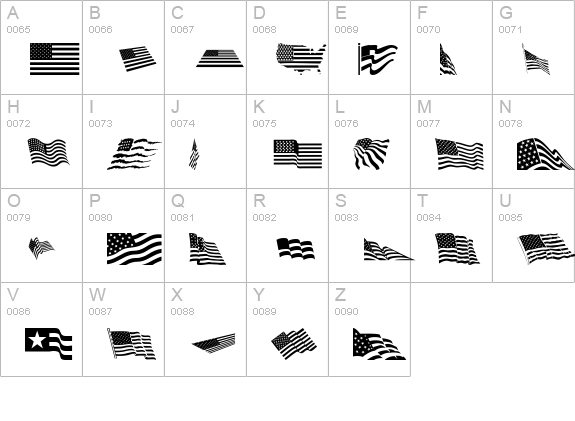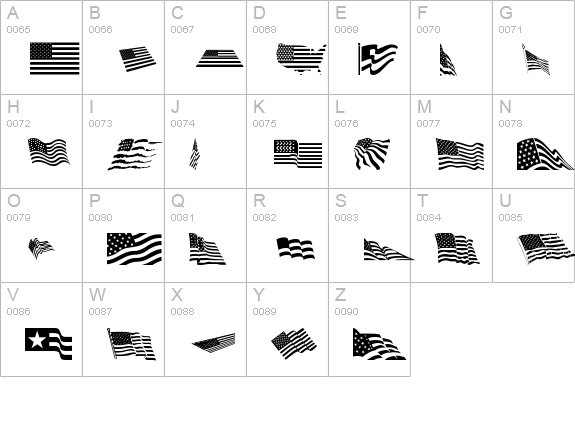
Look for America font is a versatile and modern typeface that captures the essence of American design. With its clean lines and bold presence, this font is perfect for a wide range of design projects, from branding to editorial design. The unique character of Look for America font makes it stand out from the crowd and gives your designs a sense of style and sophistication. The best part? Look for America font is available for free download at FontsMarket.com. This means you can easily access this stunning font and use it in your projects without any cost. Whether you're a professional designer or a hobbyist looking to add a touch of elegance to your work, Look for America font is the perfect choice. Download it today and elevate your designs with this beautiful typeface.